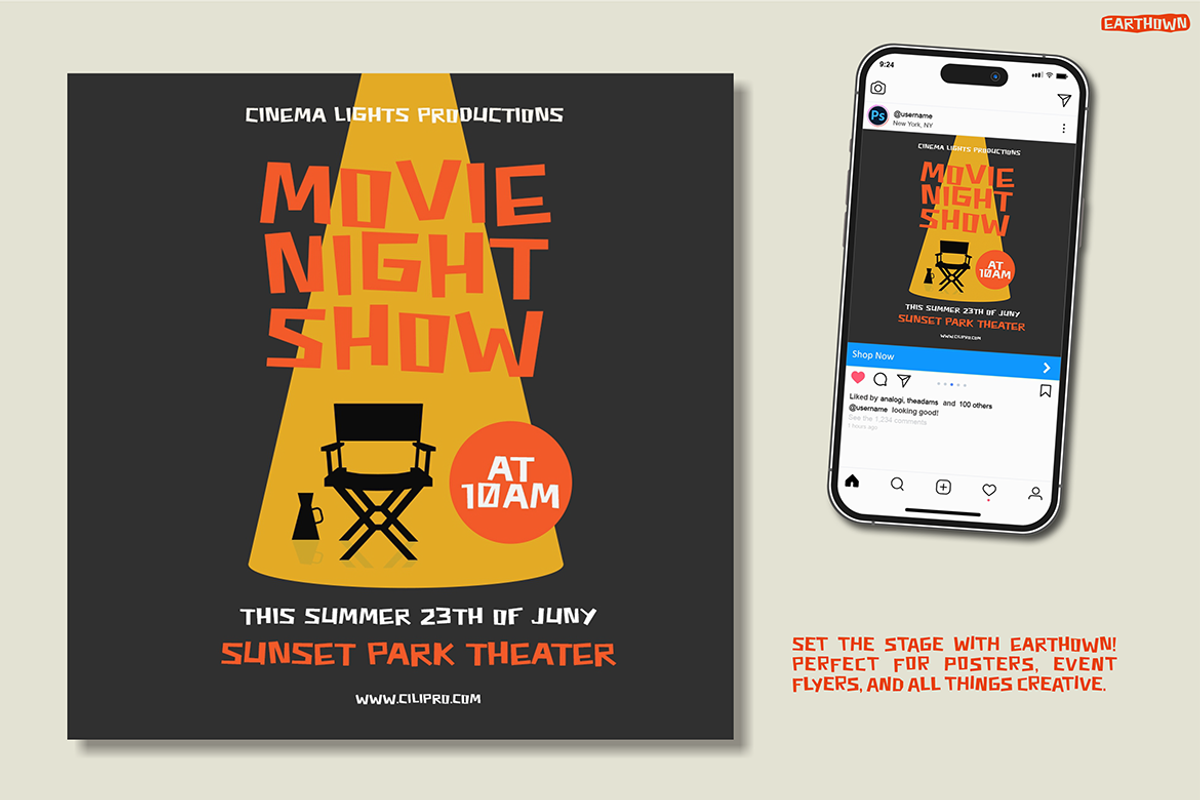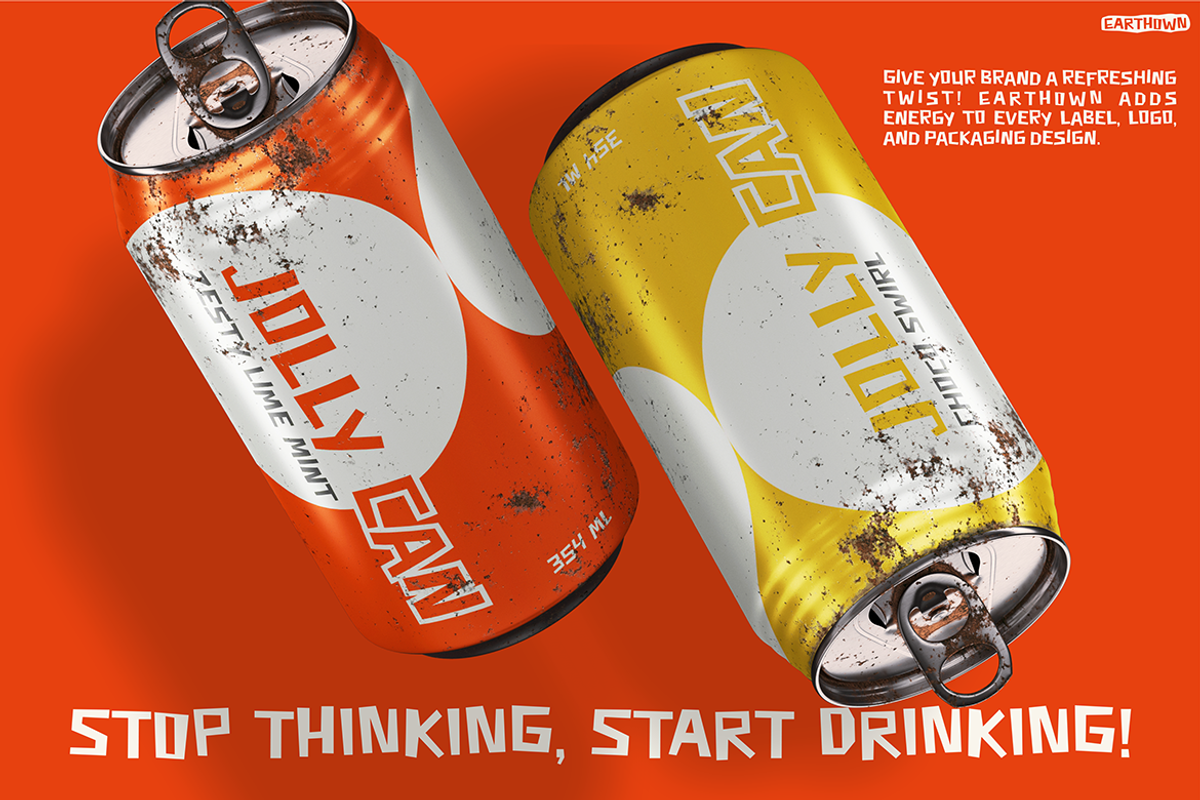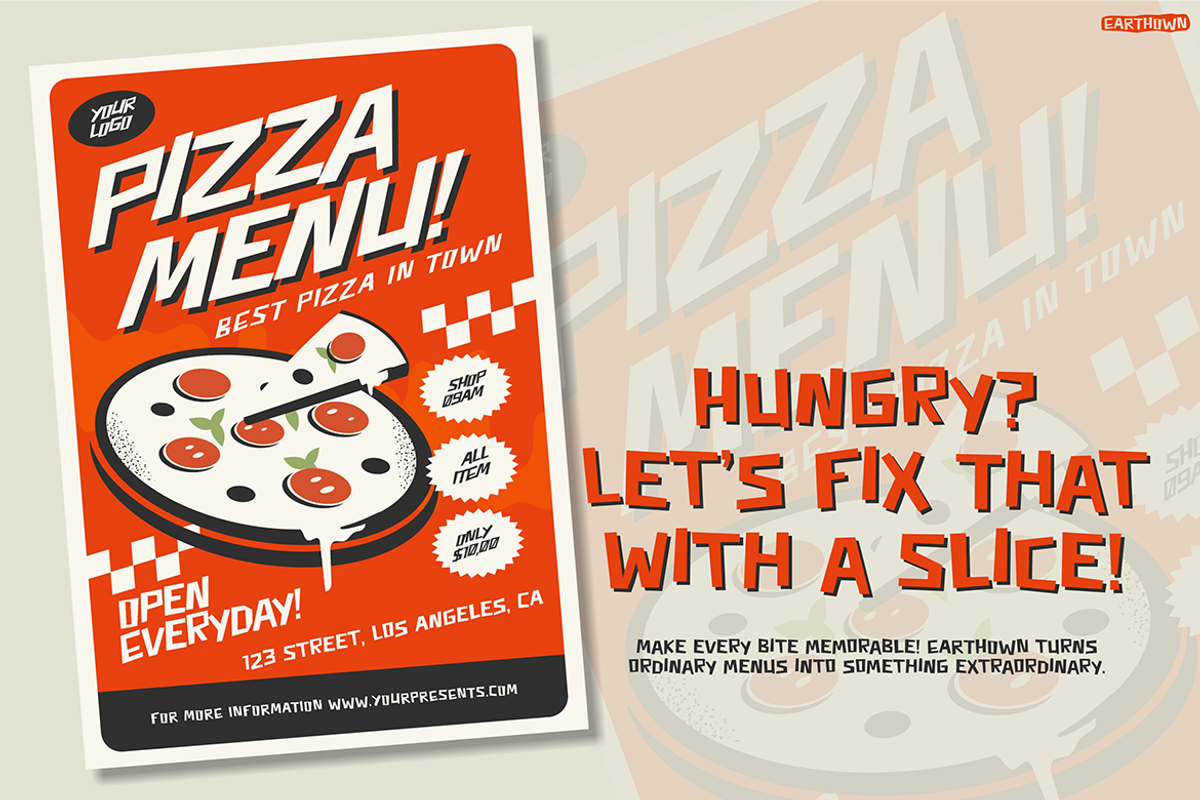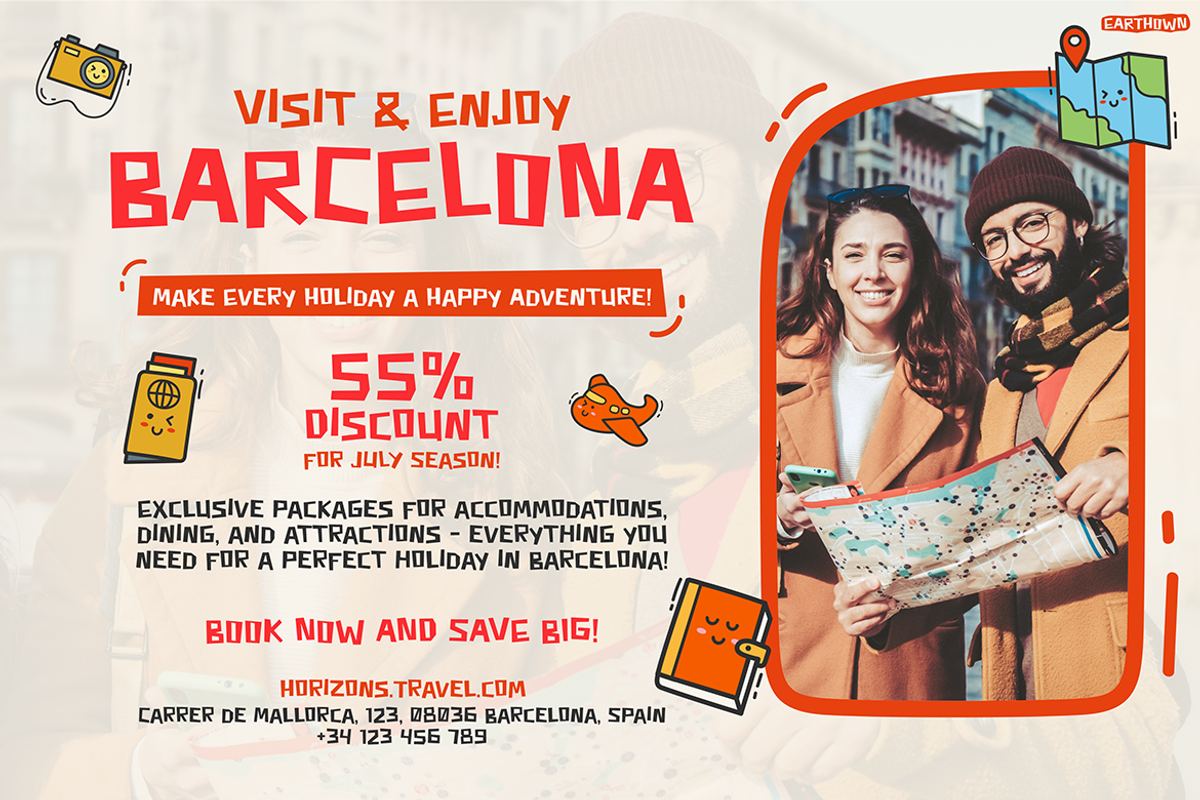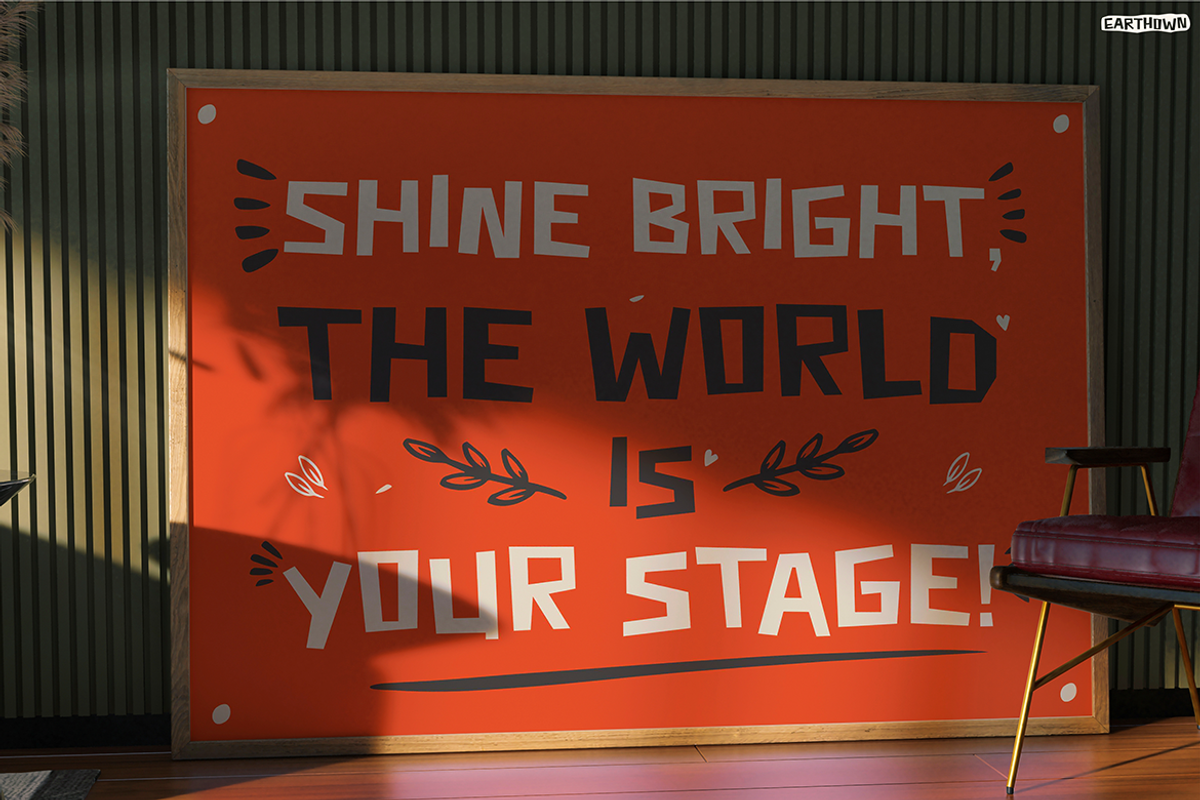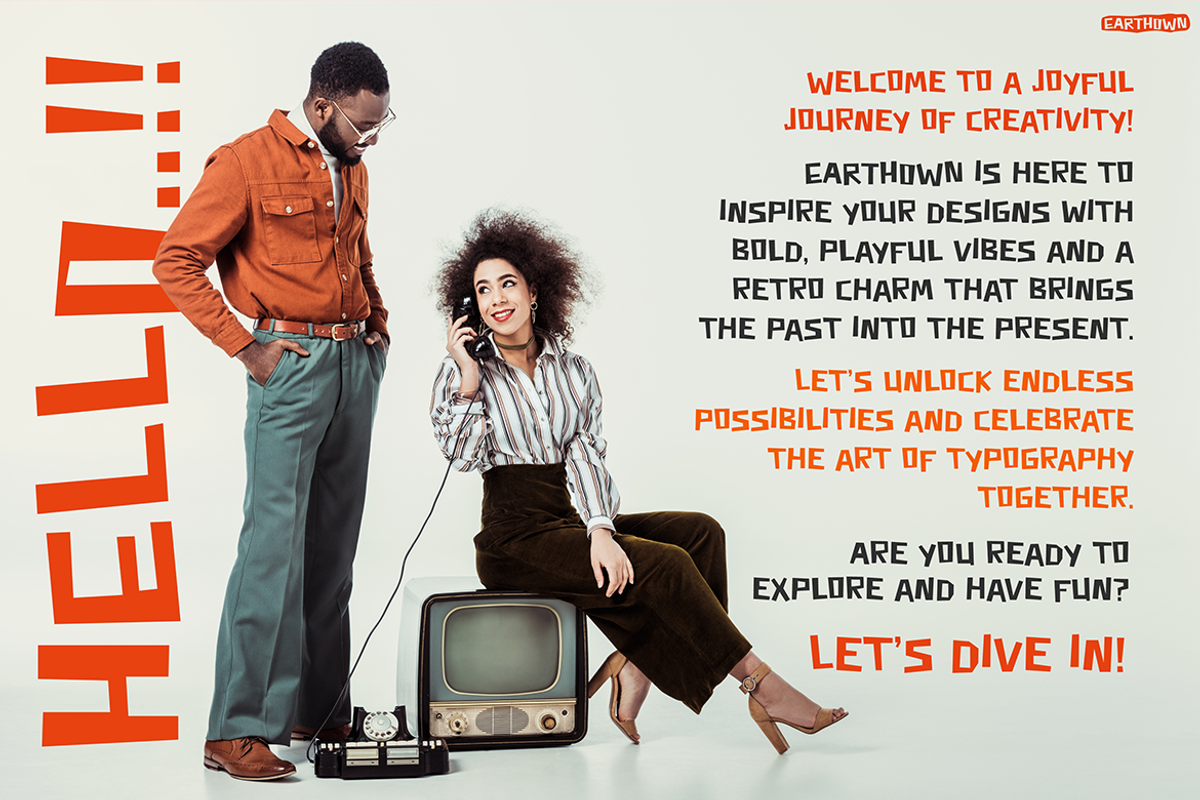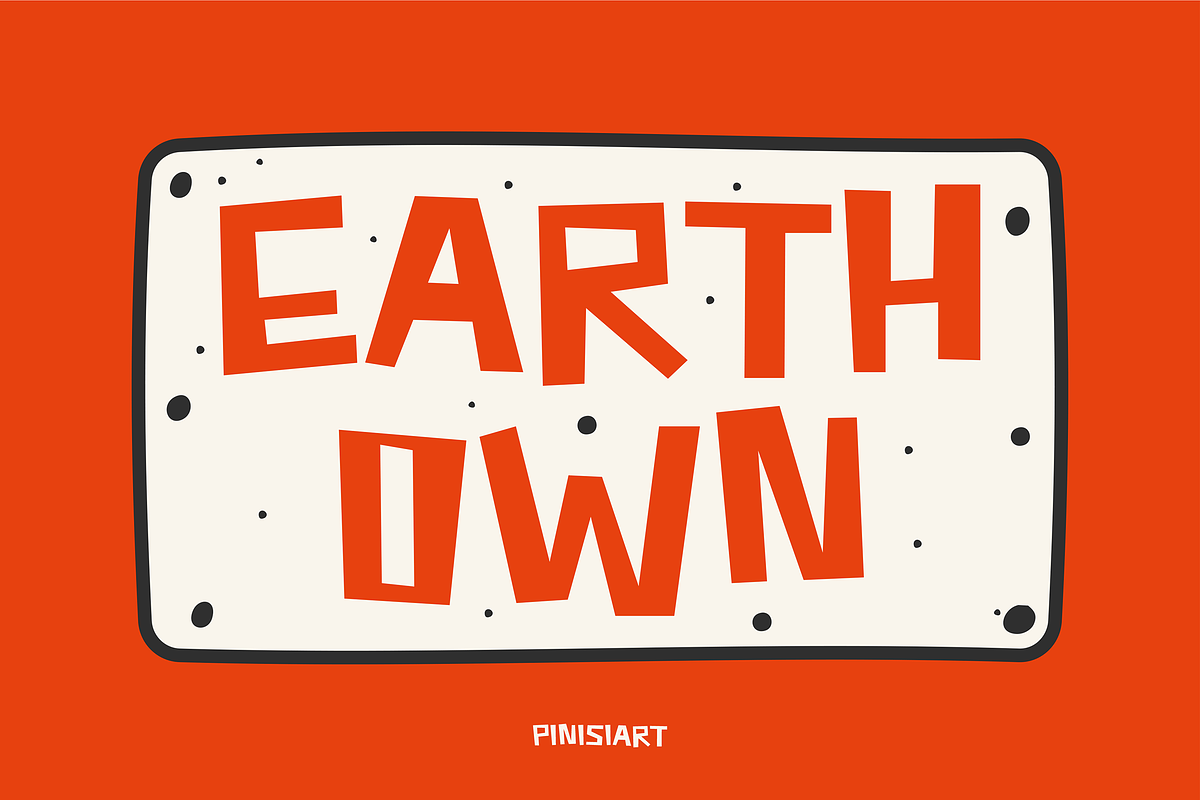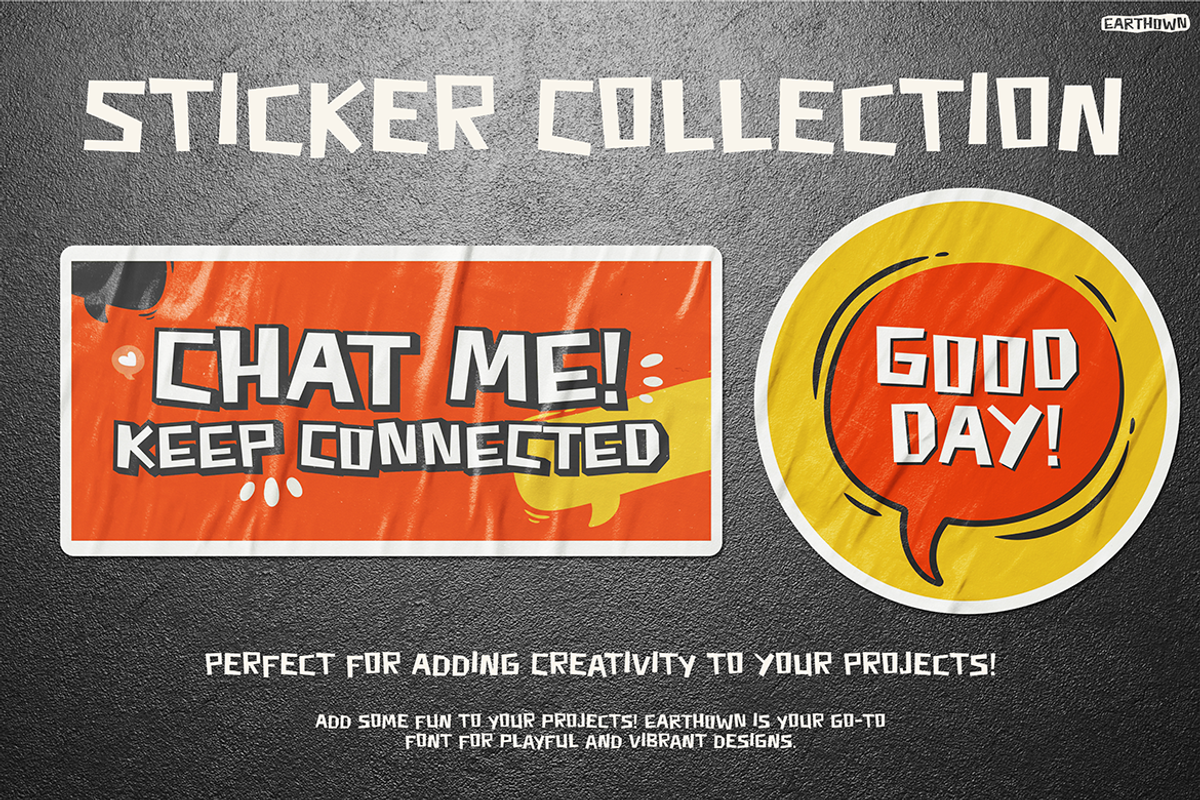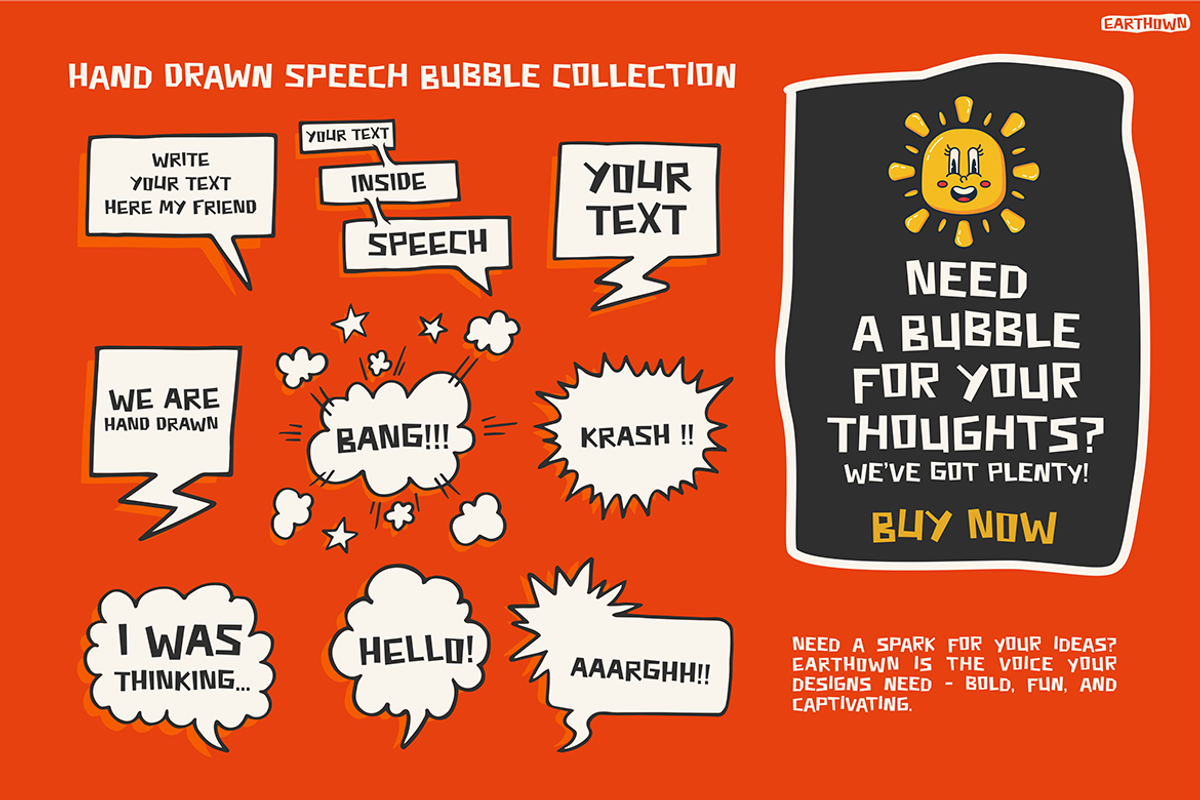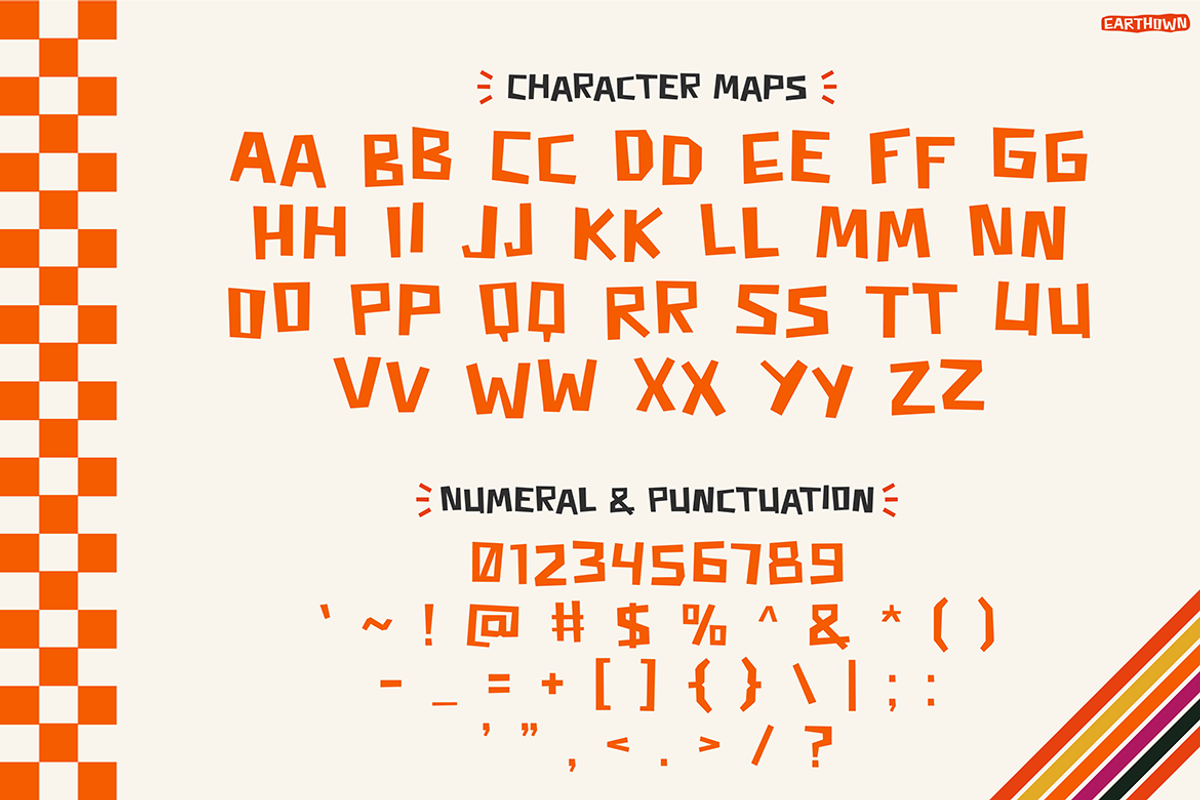
EARTHOWN
The Instagram Font EARTHOWN grabs attention with its playful and bold typeface. It helps your message stand out effortlessly. Moreover, its chunky, hand-drawn style creates an organic, imperfect feel that appeals to youthful, creative audiences. In addition, uneven strokes and quirky letterforms bring a warm, human touch. They work perfectly with designs that evoke joy, energy, or individuality.
Furthermore, this font’s geometric yet casual aesthetic enhances various creative projects. For instance, designers use it effectively for social media posts, logos, posters, or merchandise. Additionally, its bold color adaptability allows it to shine in both digital and print applications. Most importantly, the retro-modern fusion elevates branding, especially for eco-conscious or artsy brands.
What sets EARTHOWN apart is its ability to create a visual statement that feels both fun and professional. Its imperfections make it approachable, while its boldness ensures it commands attention. Because of this versatility, the font fits a wide range of creative needs. It can complement bright, colorful palettes or add contrast to minimalist designs. You can also experiment with different font sizes and effects to customize its impact further.
EARTHOWN works especially well for storytelling. Whether it’s on a vibrant Instagram post or a heartfelt thank-you card, this font conveys personality and warmth. Its charm lies in its ability to connect emotionally with audiences while remaining visually striking. For creative professionals, it provides a unique tool to differentiate their work and stand out in crowded markets.